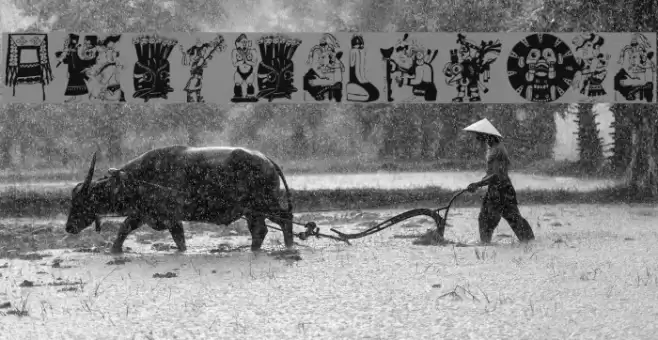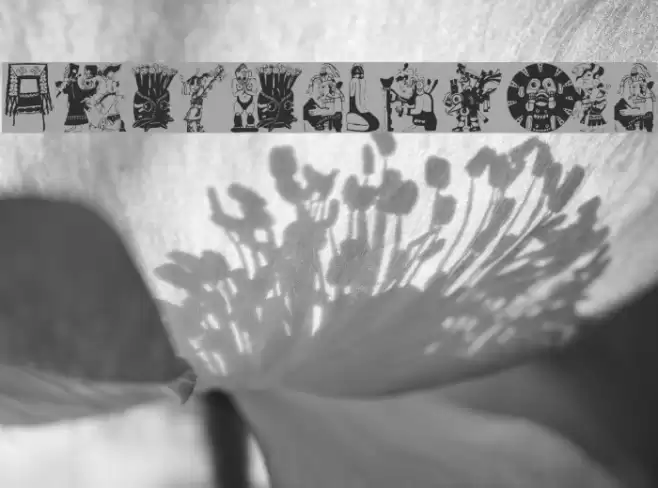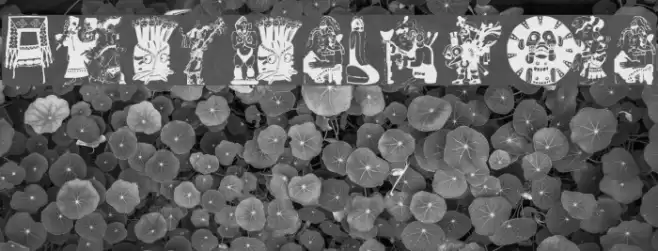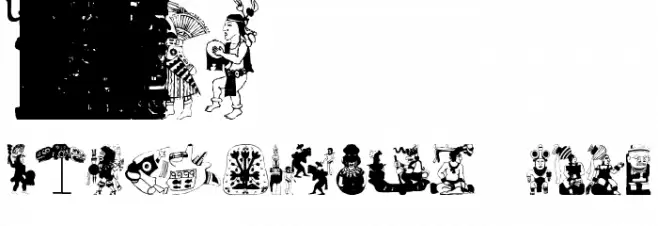
ColumbusTraces Font
ColumbusTraces Description
This font is a highly decorative and illustrative typeface, featuring intricate designs that incorporate elements of indigenous art and cultural motifs. Each character is uniquely crafted with detailed imagery, making it more of an artistic representation than a traditional font. The characters are filled with complex patterns and figures, often depicting scenes or symbols that suggest a rich cultural narrative. This typeface is not designed for readability in body text but rather for artistic and thematic expression.
A decorative font with intricate, culturally inspired illustrations for each character from Uncategorized fonts.
- Proposed Projects: Ideal for cultural exhibitions, themed posters, artistic projects, or any design work that seeks to incorporate historical or cultural storytelling through typography.
- Use Case: Logos, Posters, Artistic Projects